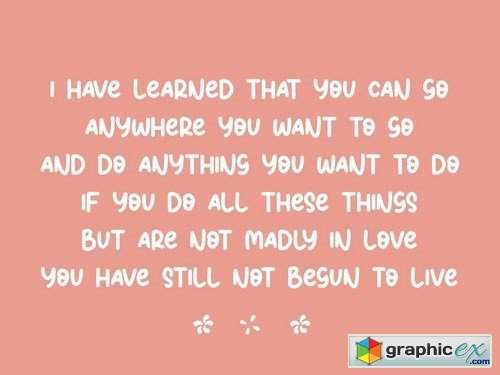
Shadow Beamer YH - Monoline Brush Font
Shadow Beamer is perfect for product packaging, branding project, megazine, social media, wedding, or just used to express words above the background.